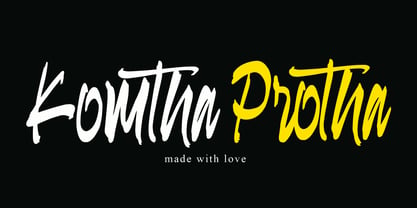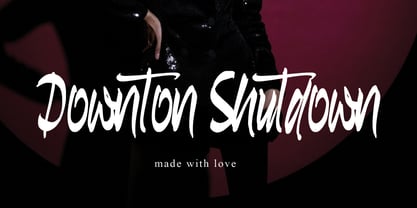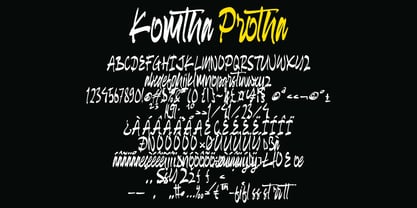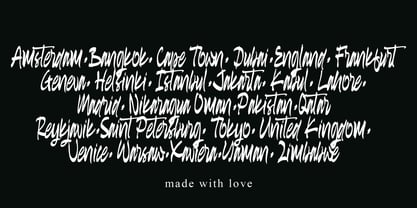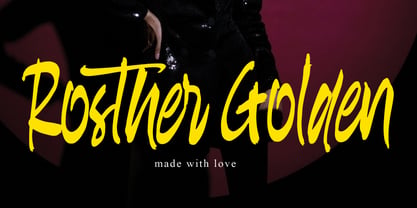
Komtha Protha
The Komtha Protha Font Family was designed by Dhoni Trihatmoko and published by Ayska. Komtha Protha contains 1 styles. More about this family
Experience the captivating allure of Komtha Protha, a remarkable blend of ground-breaking aesthetics and classic hand-drawn scripting. This distinctive font effortlessly emits a level of sophistication unrivaled in its field, perfectly infusing every exclusive project with a distinct artistic touch. Komtha Protha is effortlessly versatile, enhancing your digital journal into a breathtaking mosaic of artistry, personalizing your blog with its unmistakable signature, or adding a dash of typographic elegance to your handwritten musings. Fall under the spell of the compelling charm of Komtha Protha and its boundless craftsmanship. It amplifies and enlivens every element it graces, morphing serene personal sanctuaries into vibrant displays of photography, all under its captivating influence. Komtha Protha possesses the mesmerizing ability to transform the ordinary into masterpieces of intricate art, capturing the viewer's attention with its irresistible charm. Adventure into the enchanting realm of Komtha Protha, a true guiding light to a world filled with innovative concepts and unforgettable aesthetics. Let Komtha Protha spark your creative energy, turning your visionary ideas into magnificent digital creations to behold.